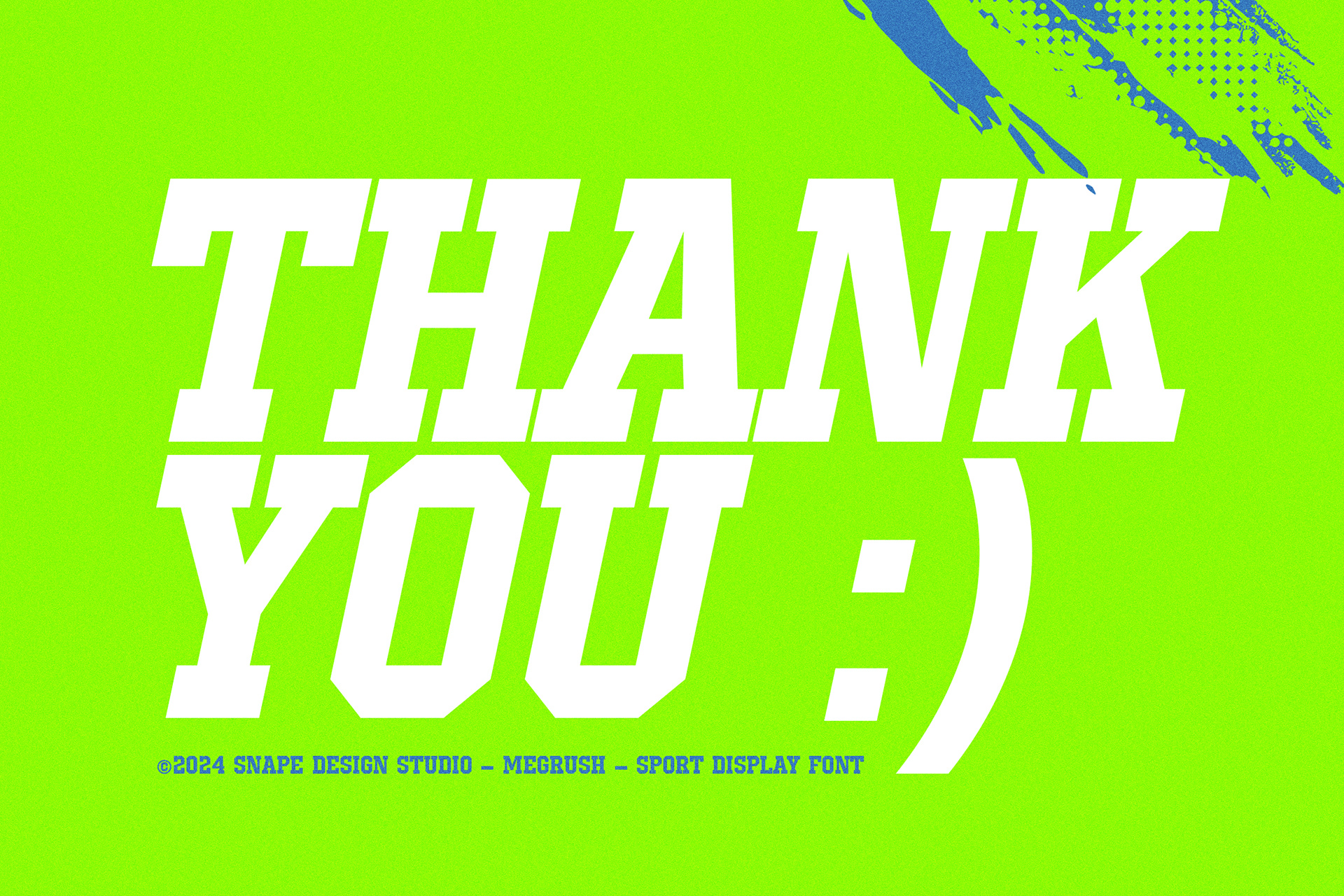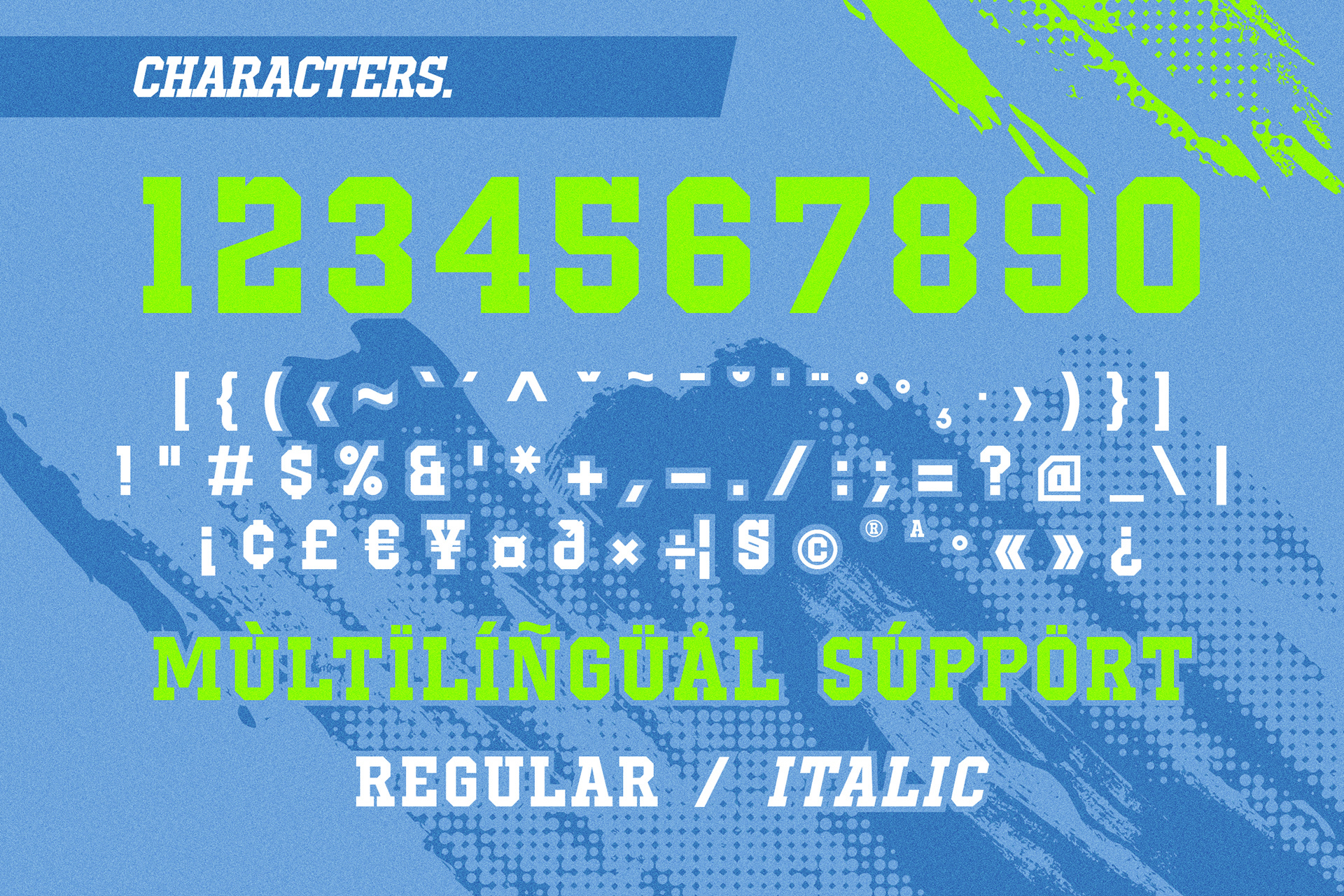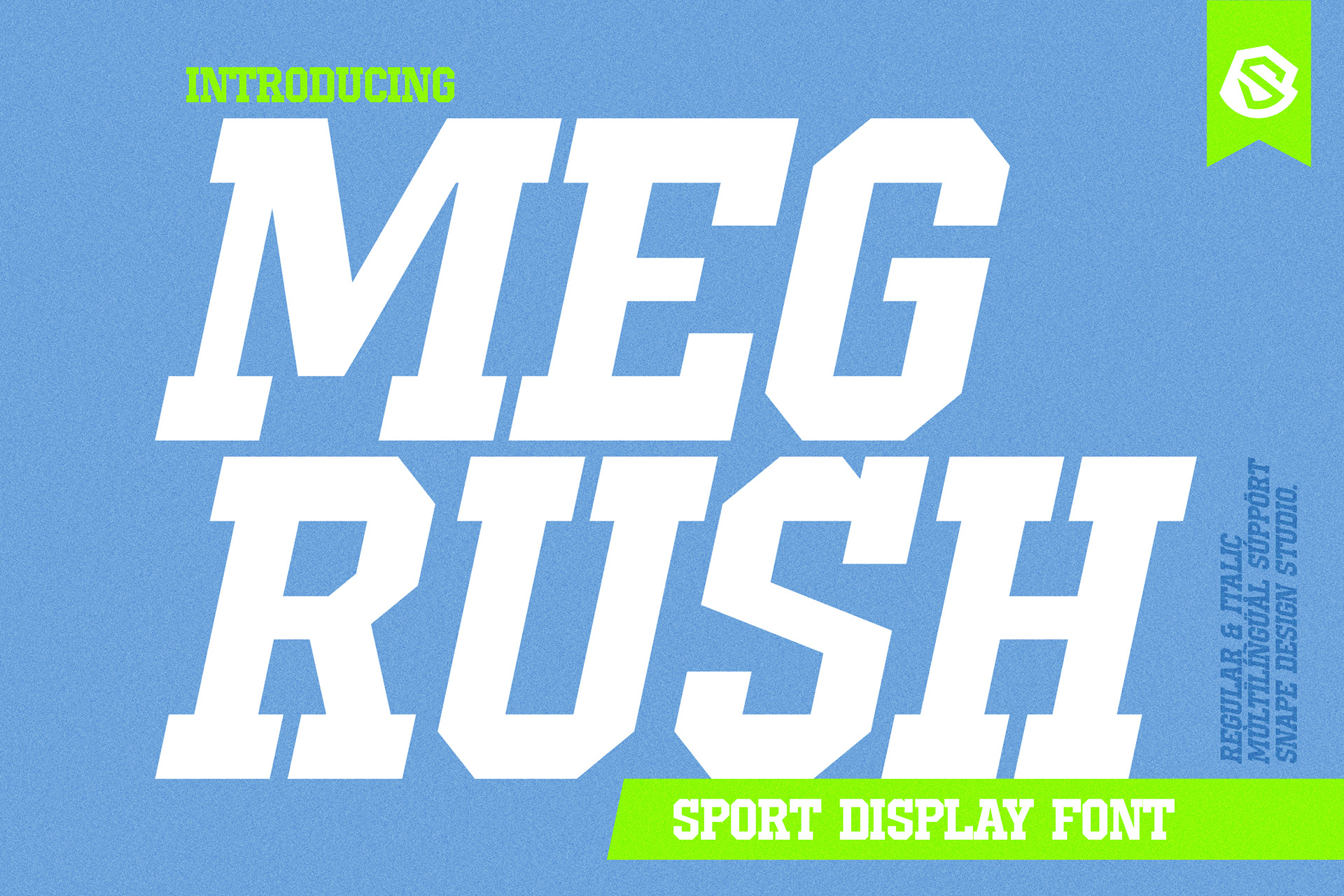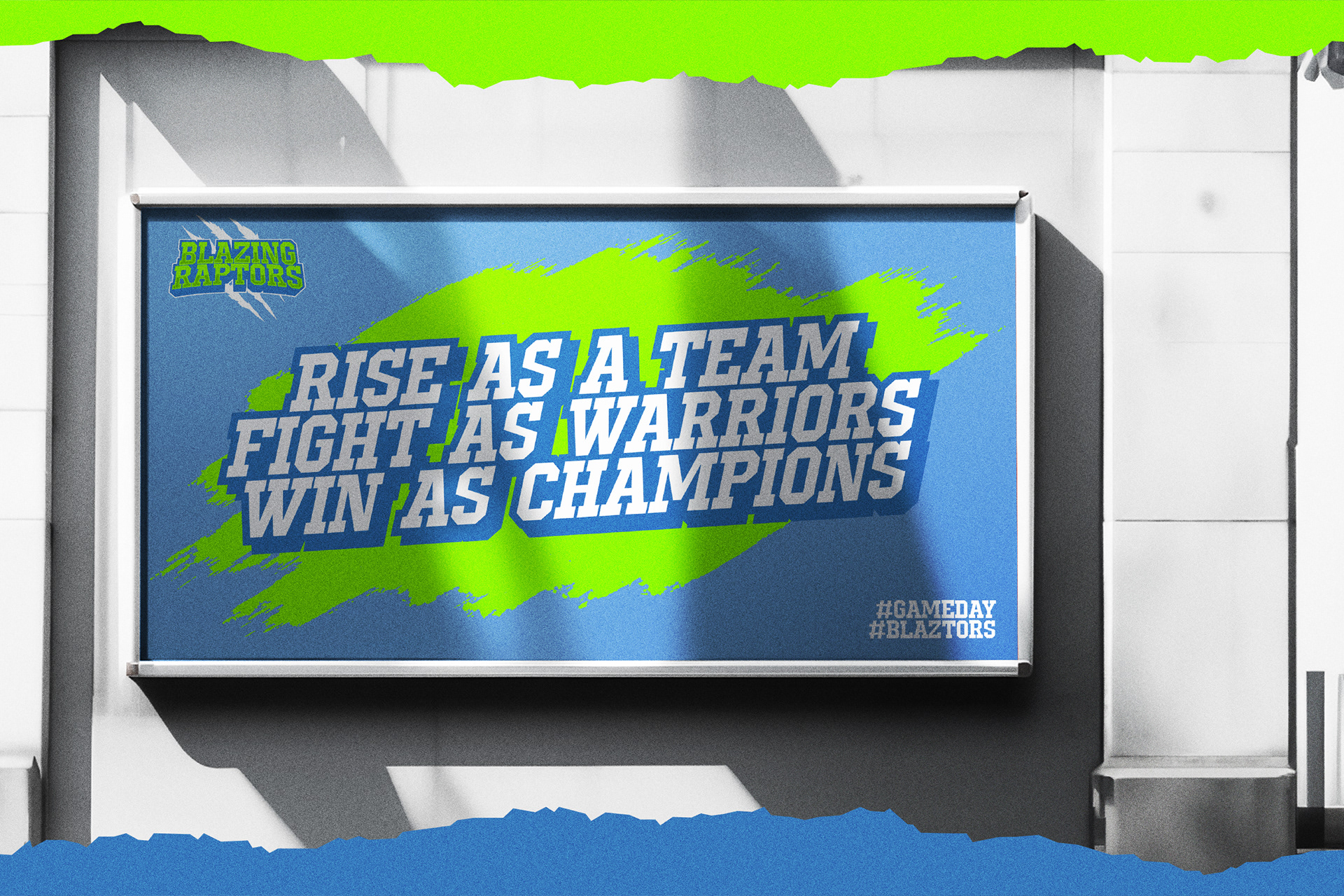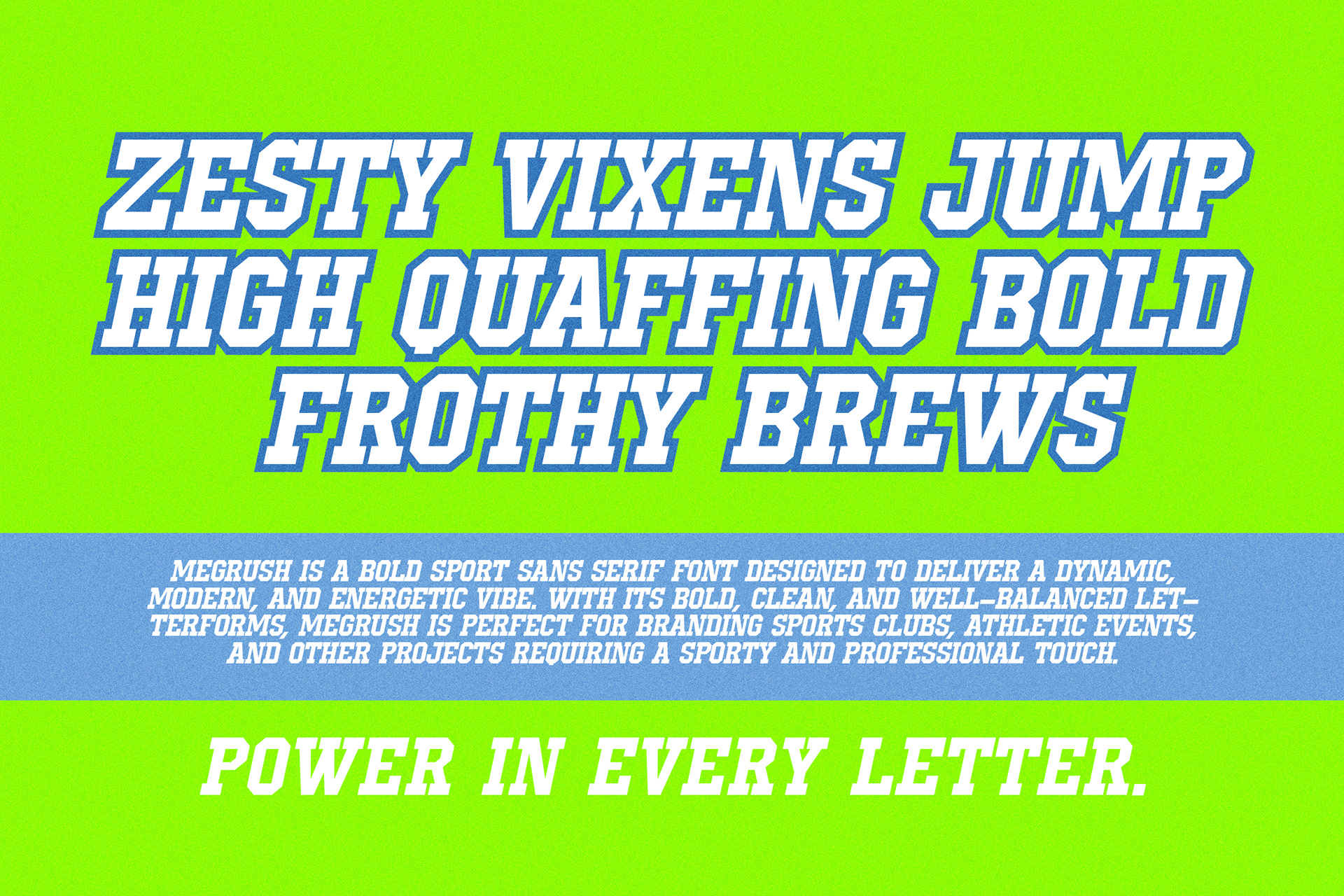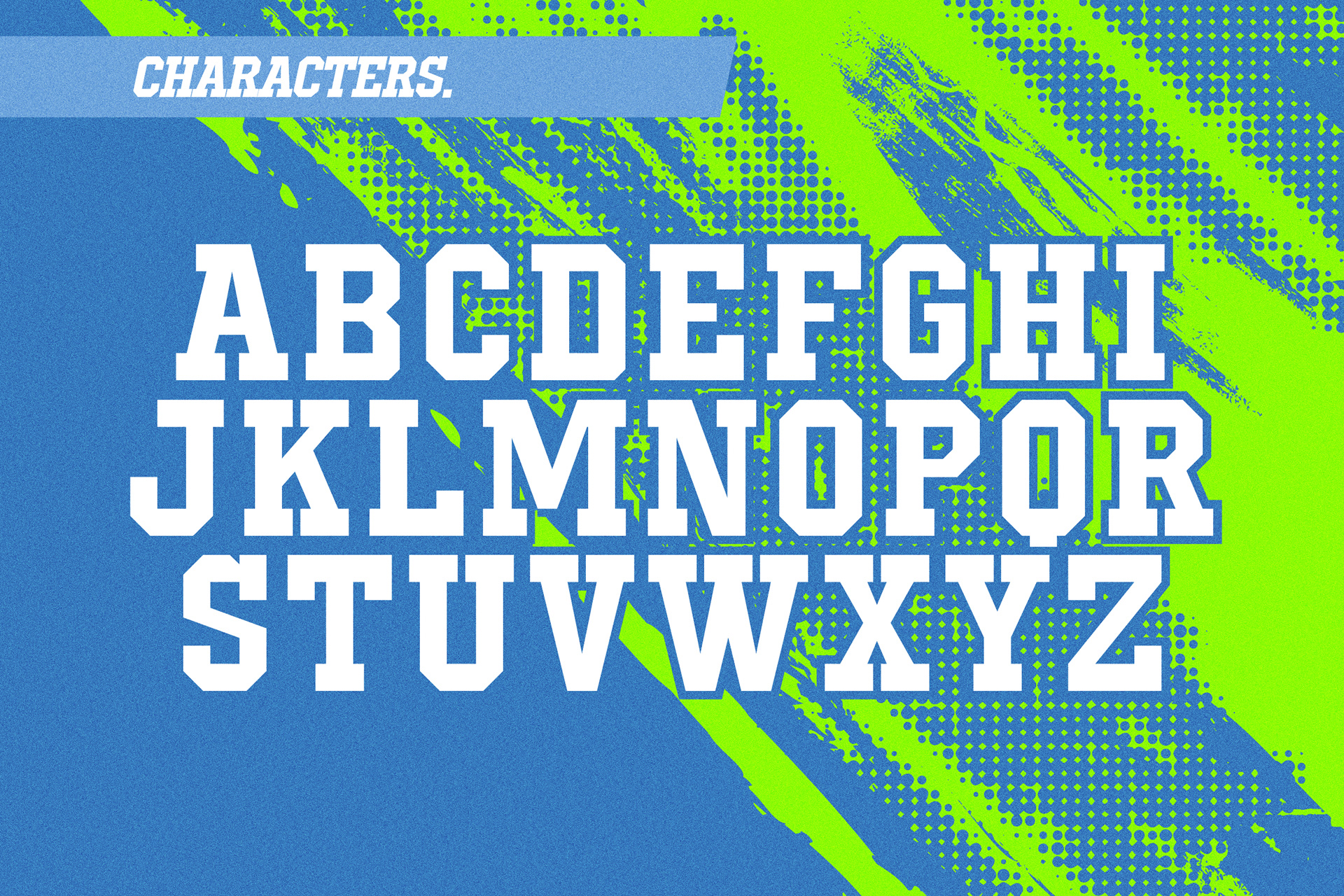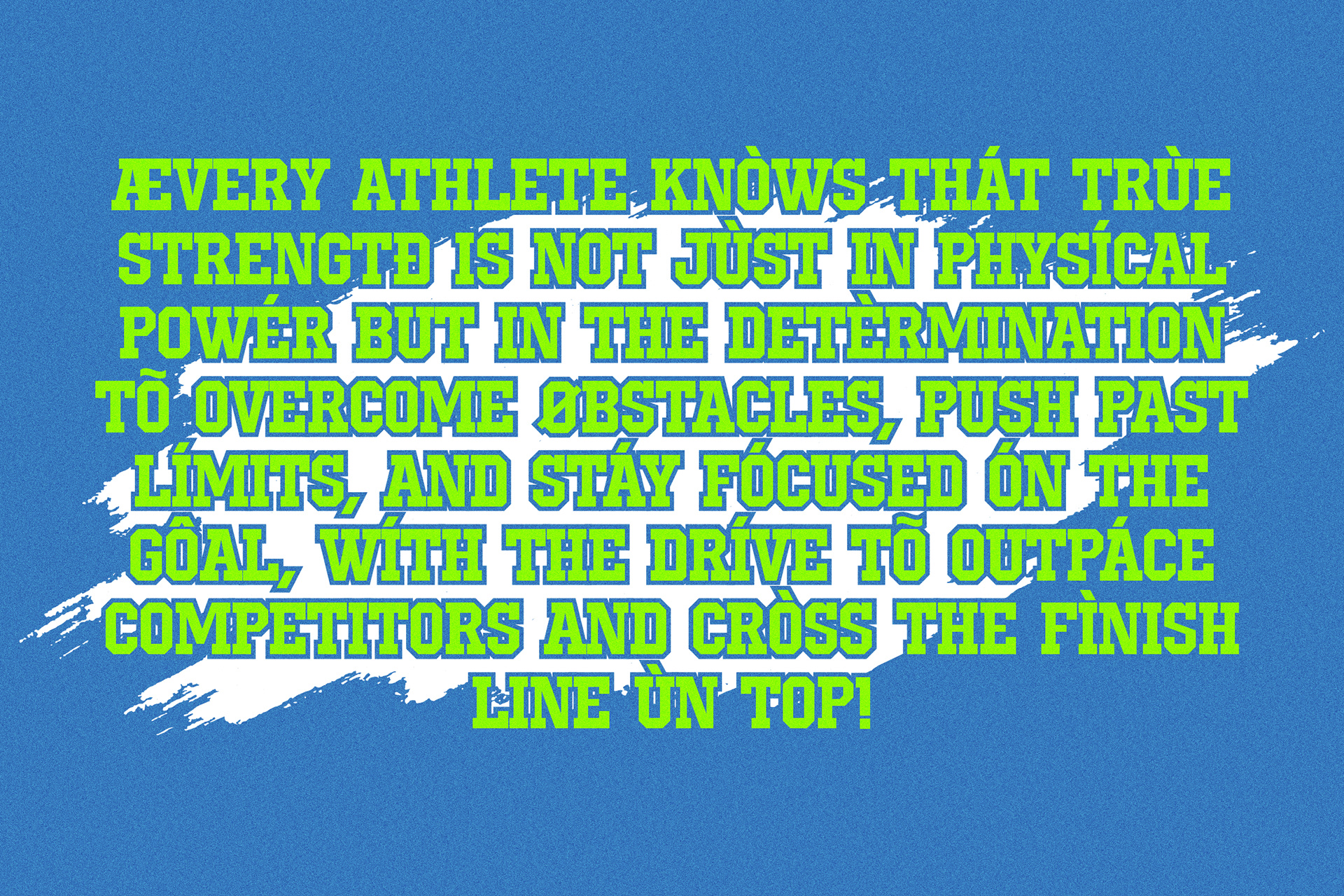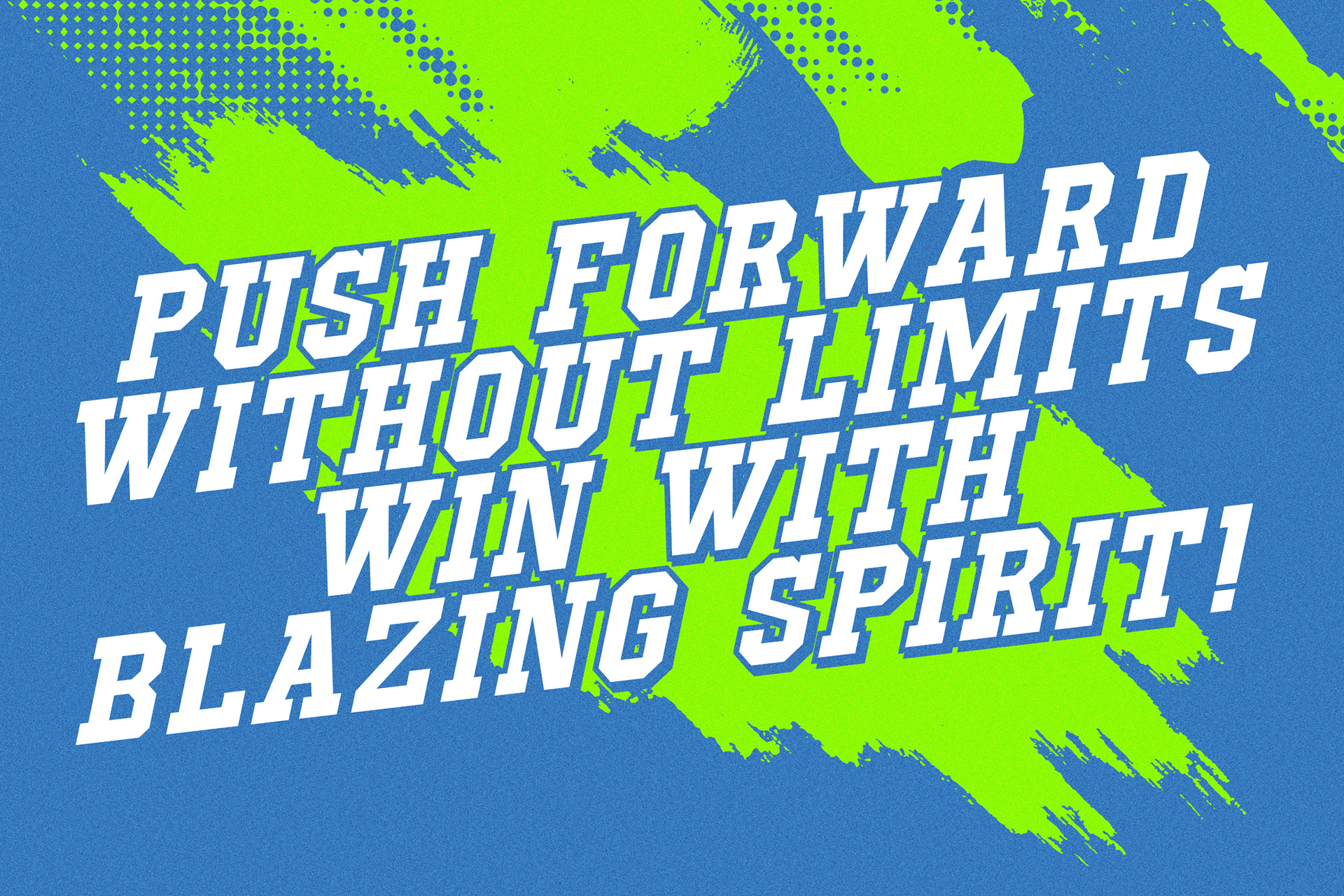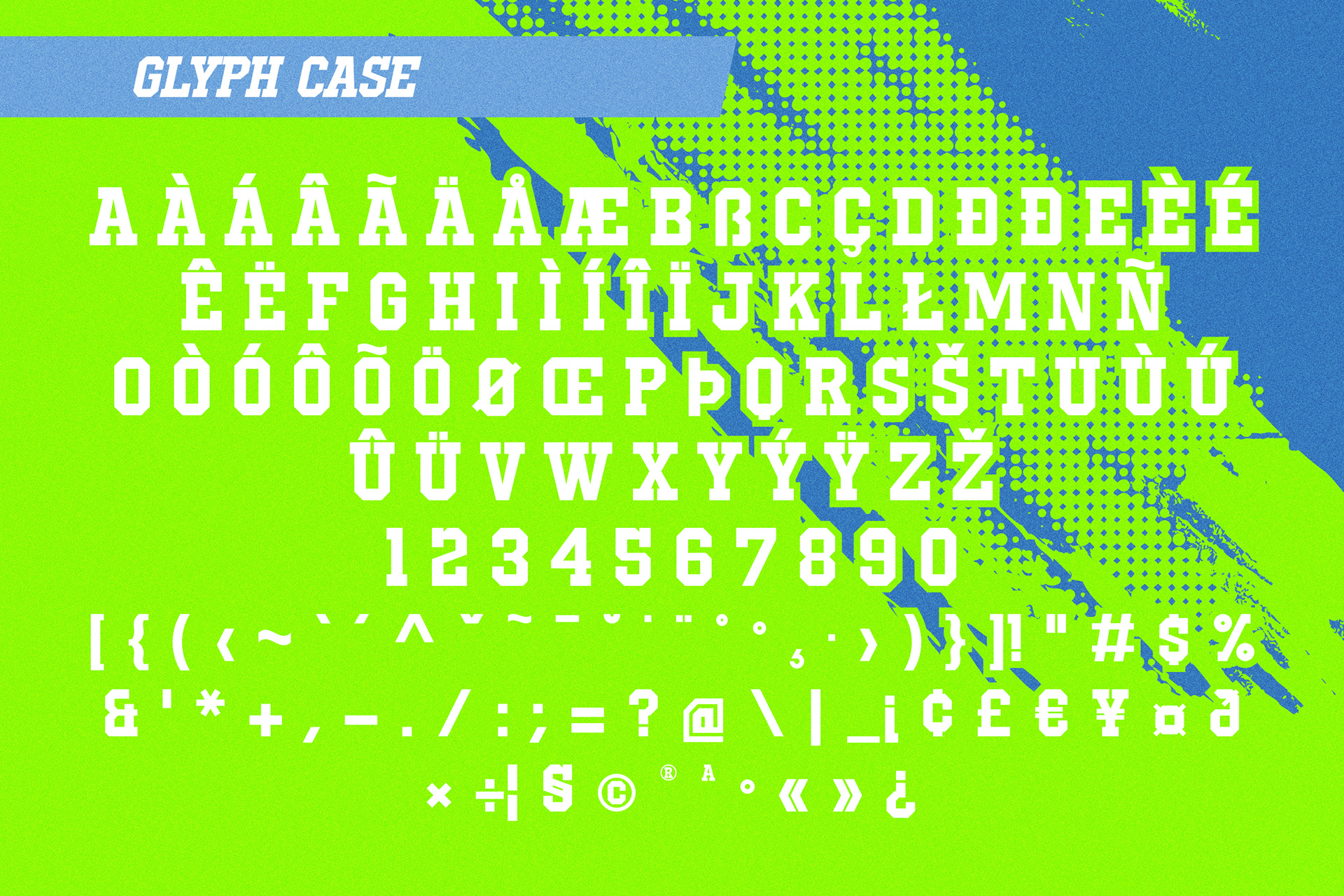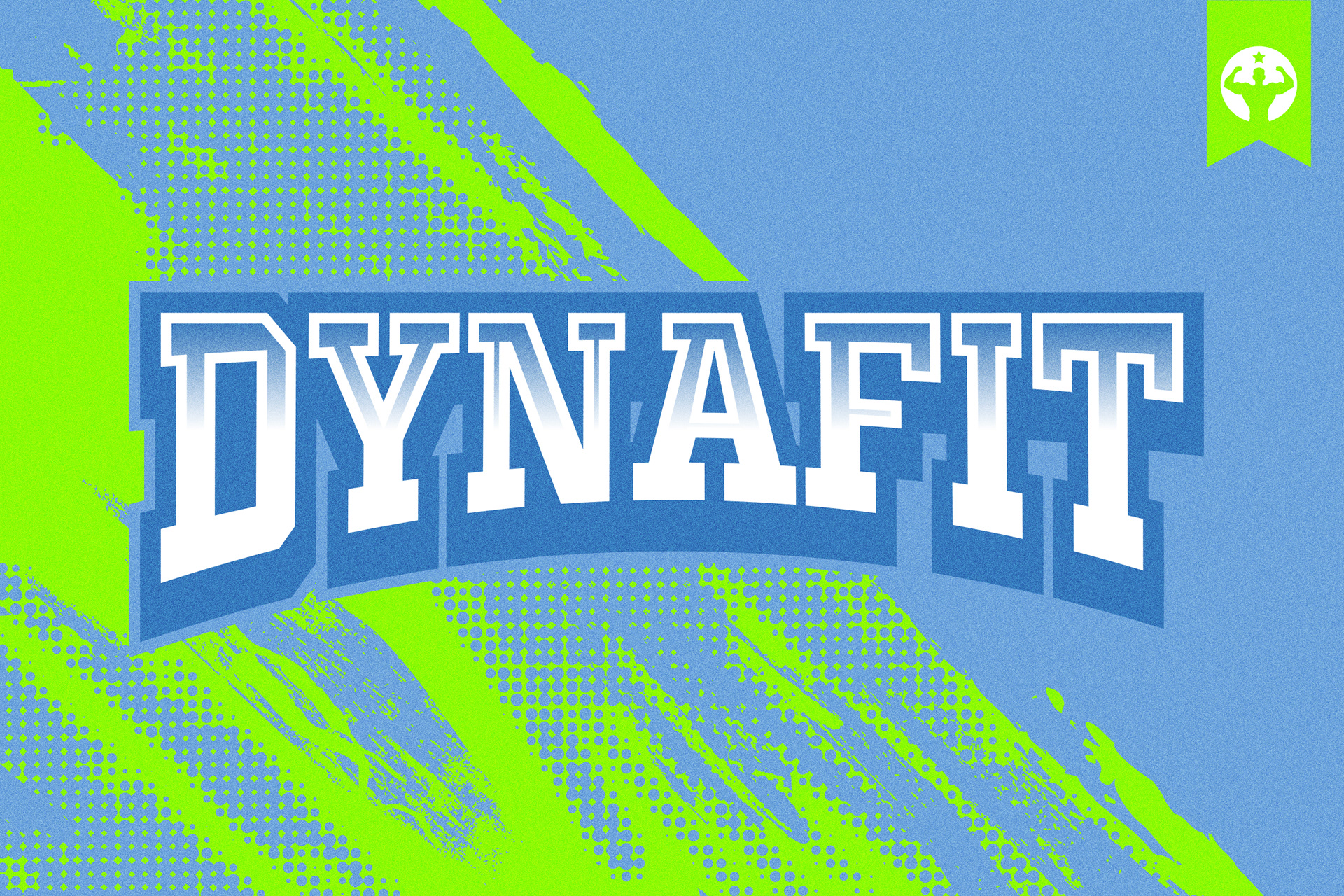
Megrush is a Bold Sport Sans Serif font designed to deliver a dynamic, modern, and energetic vibe. With its bold, clean, and well-balanced letterforms, Megrush is perfect for branding sports clubs, athletic events, and other projects requiring a sporty and professional touch.
Megrush - Sport Display Font design by Ario Sabrang Damar publish under Snape Design Studio